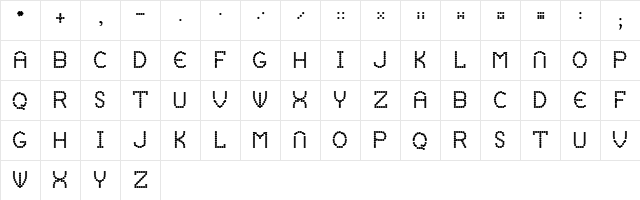
Black Pearl Caps Regular
Design Context for Black Pearl Caps Typeface
Black Pearl Caps is a composed and adaptable typeface that performs quietly and consistently across a wide range of design contexts.
Pro Tip: Use Black Pearl Caps in both headline and body roles to test its range before committing to a single application.